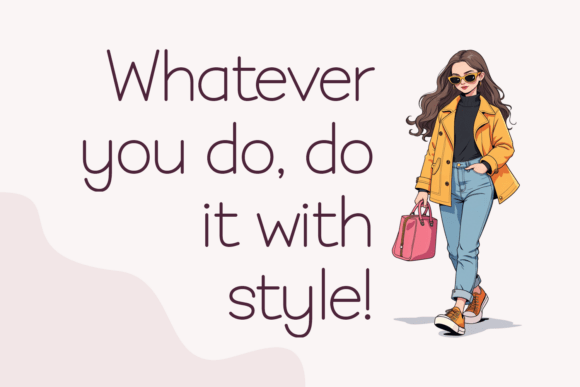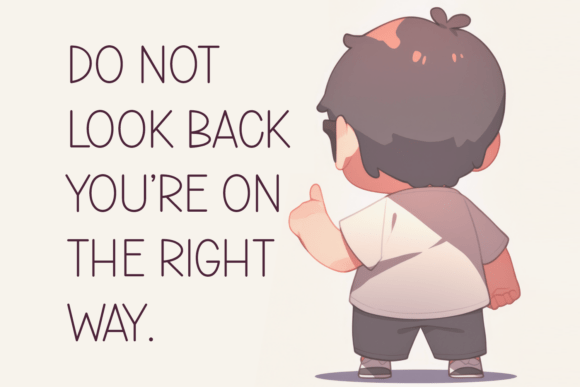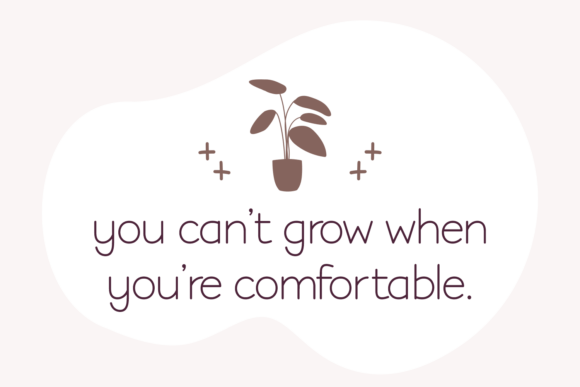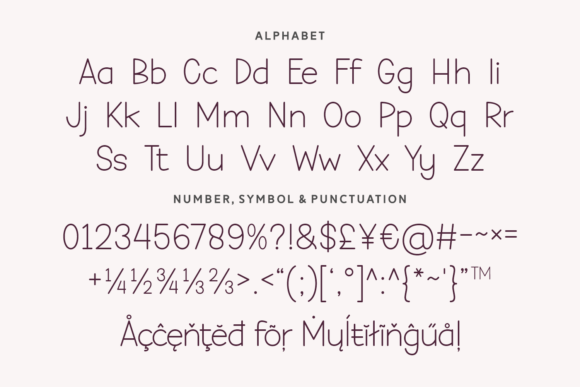
Introduction to Limited Release Font
Limited Release is an elegantly minimalist and neat sans serif font.
It can easily be matched to an incredibly large set of projects, use it to create beautiful journals, stickers, inspiring quotes, stunning logos, social media graphics, and any design So add it to your creative ideas and notice how it makes them stand out.
Key Features of Limited Release Font
Why Choose Limited Release Font?
Limited Release Font offers exceptional quality and versatility, making it a valuable addition to your design toolkit. Whether you’re creating for personal projects or commercial use, Limited Release Font delivers professional results.